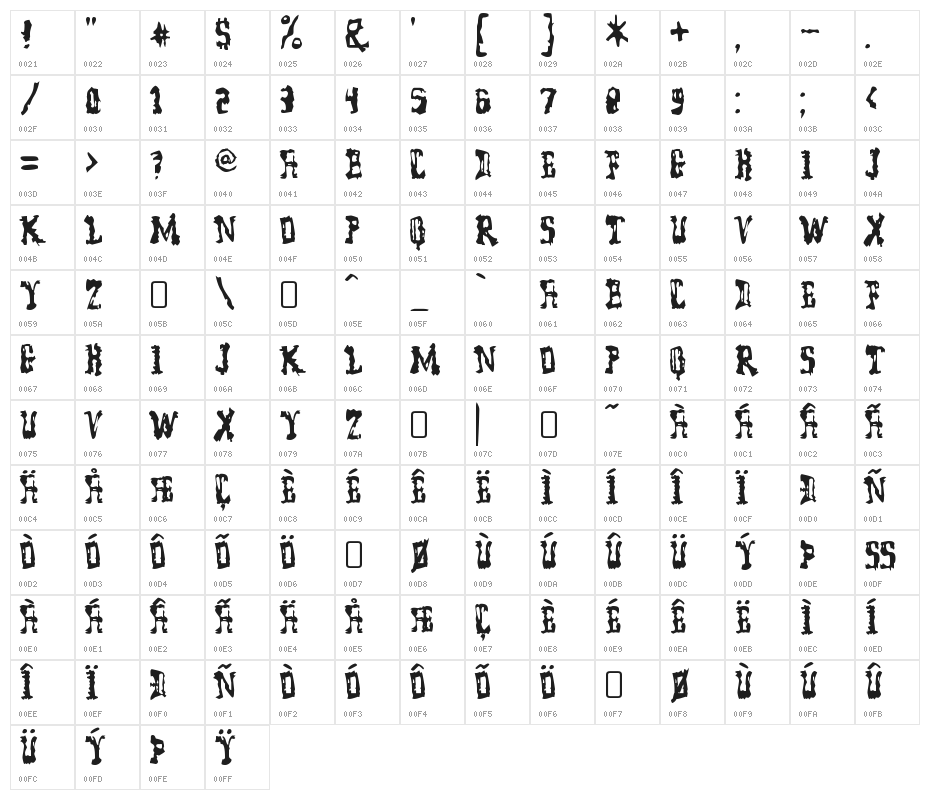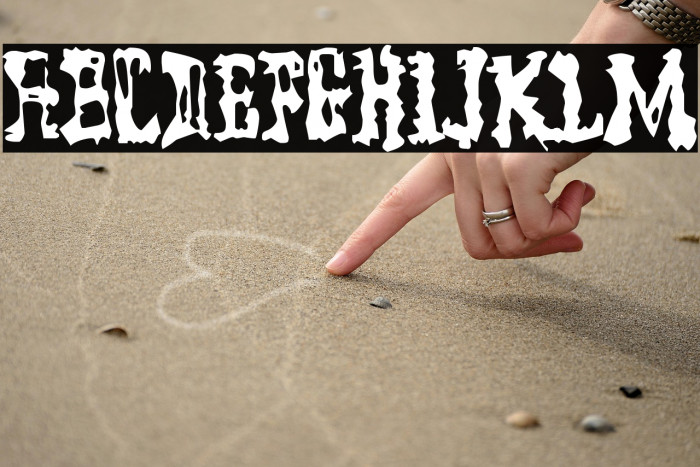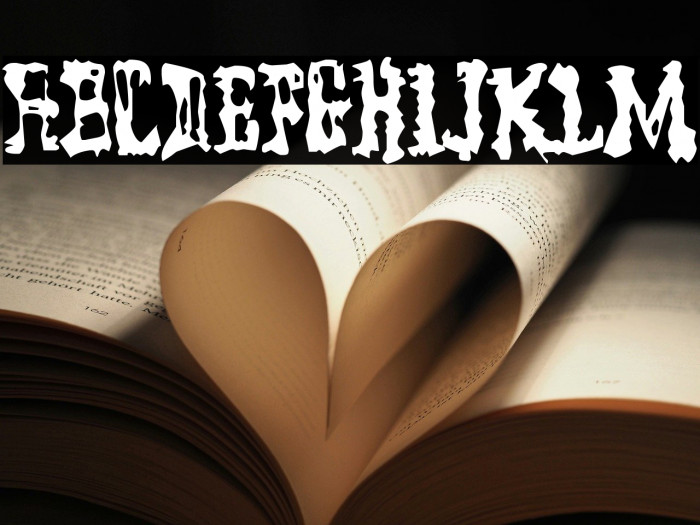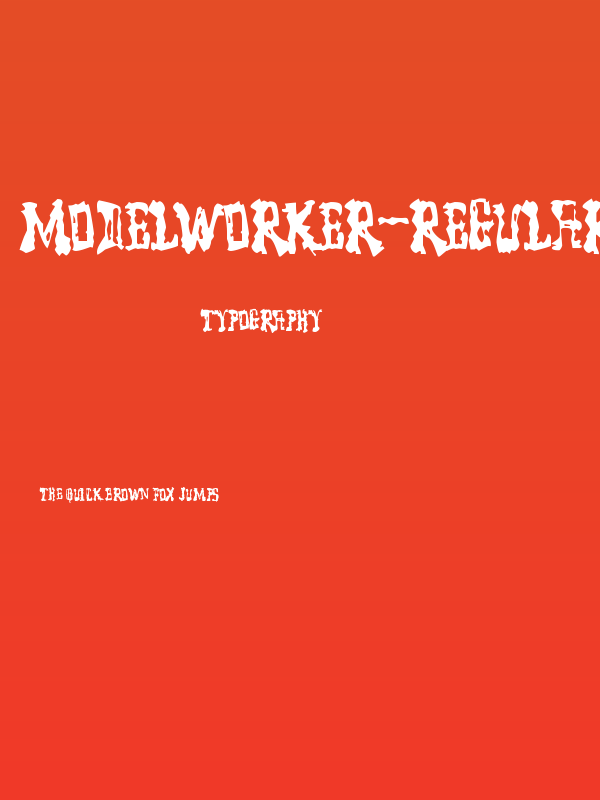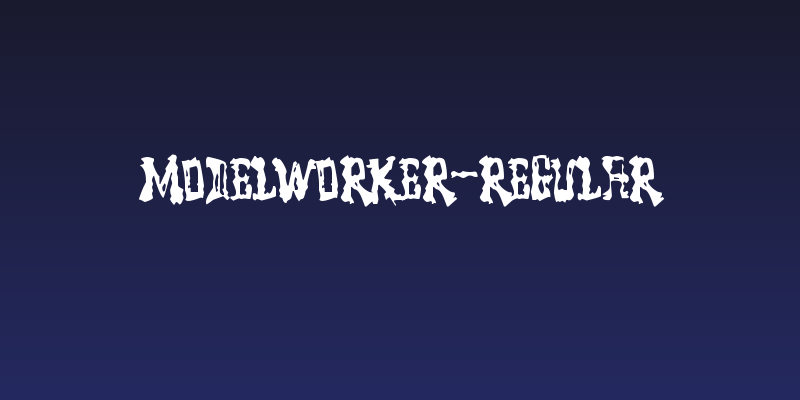
ModelWorker-Regular Font
ModelWorker-Regular Description
This font features a highly decorative and distressed style, reminiscent of dripping paint or melting wax. The characters are bold and irregular, with jagged edges and uneven strokes, creating a chaotic and intense visual impact. The uppercase and lowercase letters maintain this dramatic appearance, making it ideal for attention-grabbing designs. The numerals and special characters follow the same aesthetic, ensuring consistency across all text elements. This font is perfect for projects that require a bold and unconventional look.
Proposed ProjectsIdeal for horror-themed posters, Halloween invitations, edgy branding, and album covers.